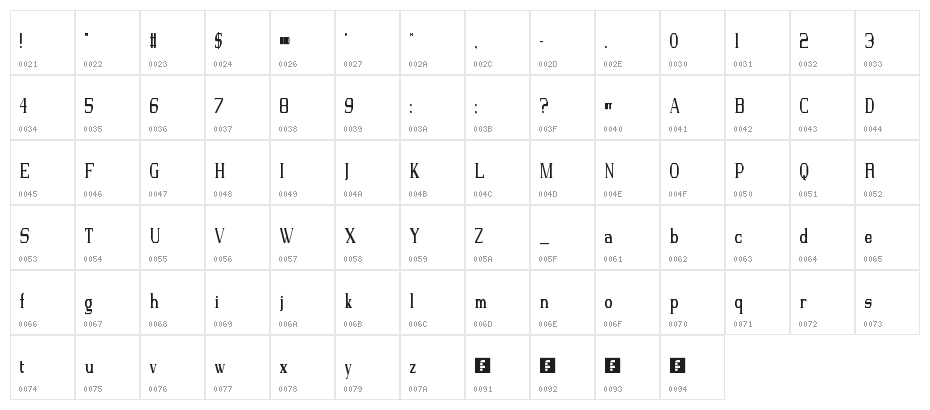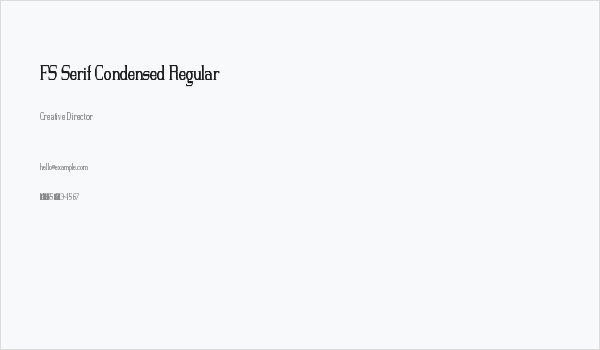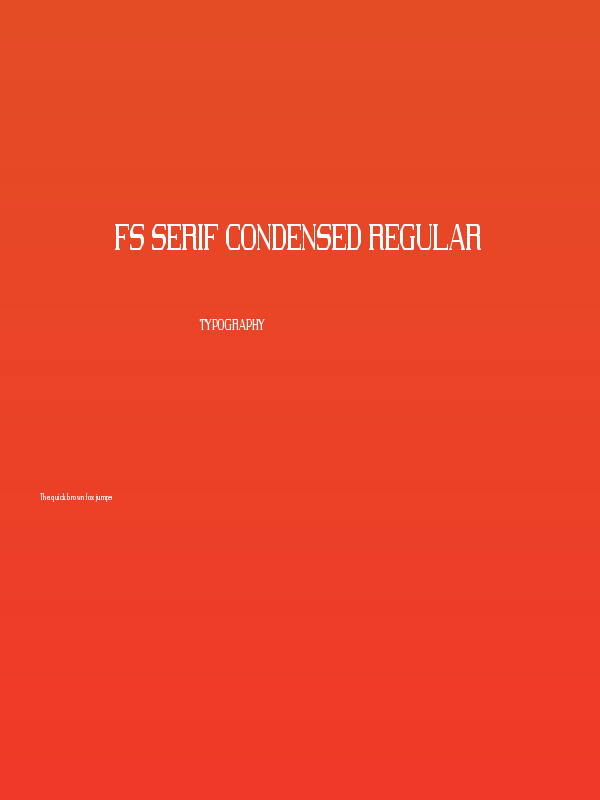
FS Serif Condensed Regular Font
FS Serif Condensed Regular Description
This typeface features a classic serif design with a condensed structure, giving it a distinctive and elegant appearance. The letters are tall and narrow, with sharp, angular serifs that add a touch of sophistication. The uppercase letters are bold and commanding, while the lowercase letters maintain a consistent style with slightly more rounded edges. The numerals are clear and legible, matching the overall aesthetic of the font. Special characters are included, maintaining the same stylistic elements. This font is well-suited for projects that require a traditional yet modern look.